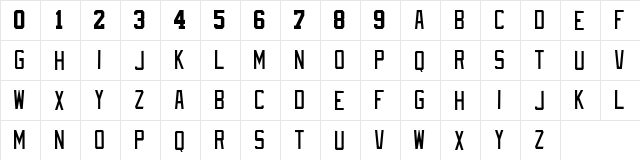
NHL Detroit Regular Font Preview
NHL Detroit Regular
Design Context for NHL Detroit Typeface
NHL Detroit takes a measured approach to typography — its balanced proportions and neutral character make it a reliable workhorse for both digital and print work.